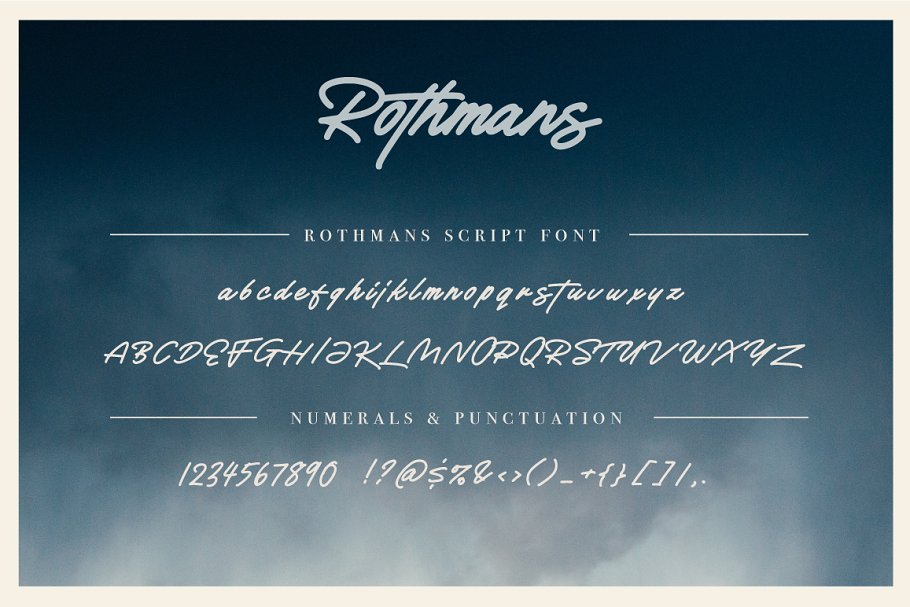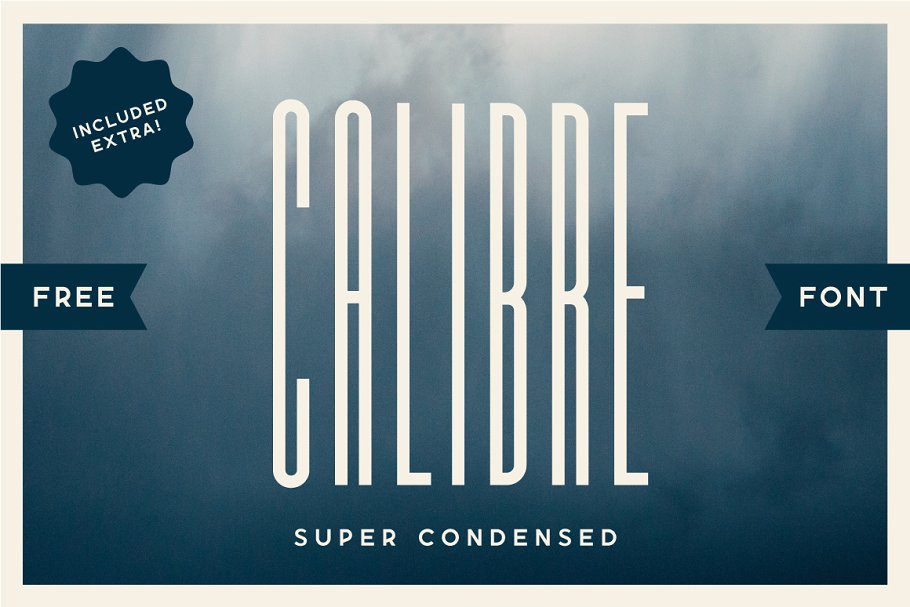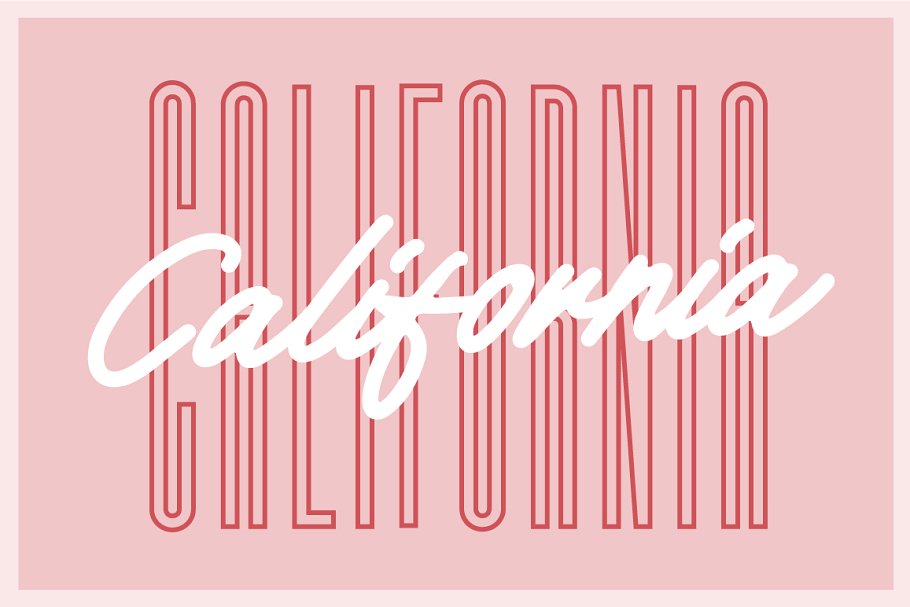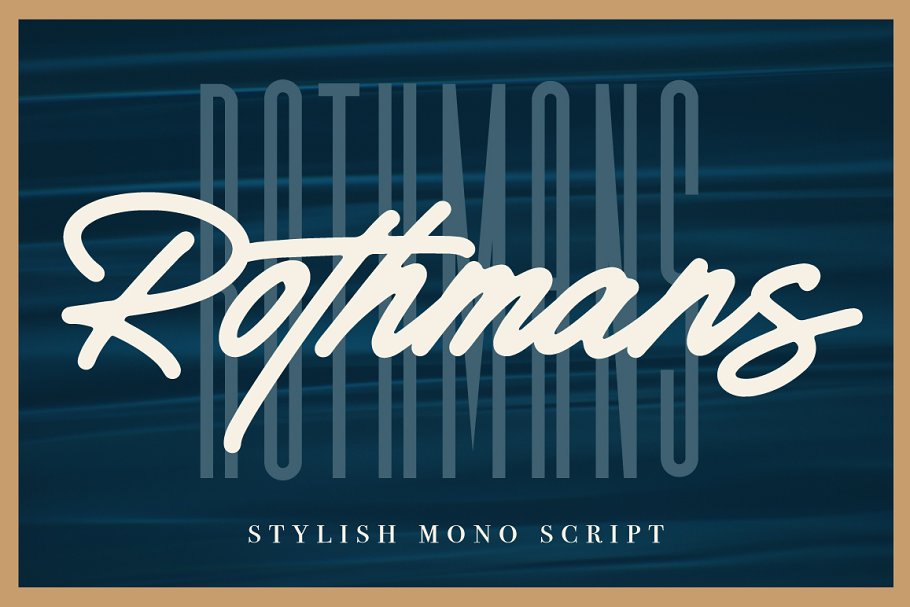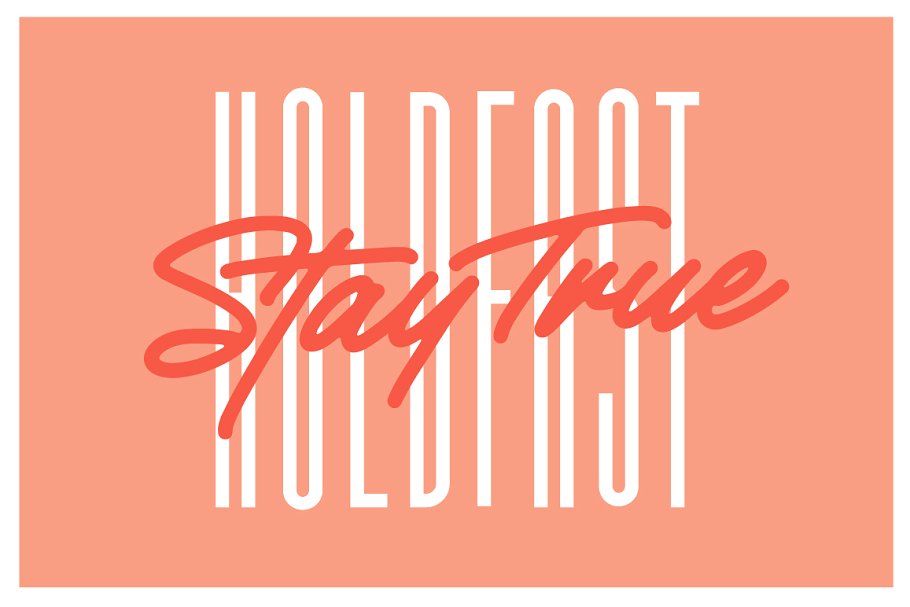
Rothmans - Font Duo
Introducing Rothmans & Calibre
Rothmans is a natural flowing modern signature script. Calibre is a Super Condensed typeface. Combined, these 2 make an interesting pair. Both typefaces are perfect for creating Logos. Calibre Super Condensed lends itself to fashion, label design & apparel while Rothmans is perfect for logos for Photographers, Artists, Etc. Combined, they yield a distinctly fresh & modern vibe.